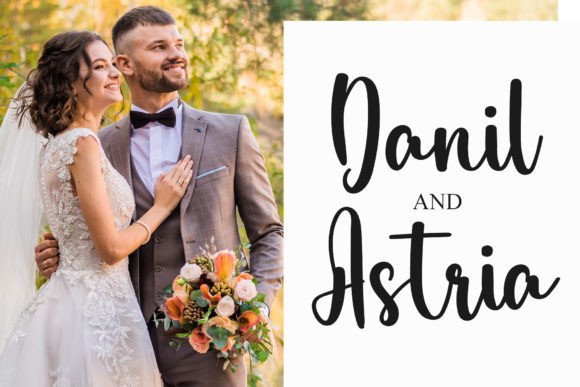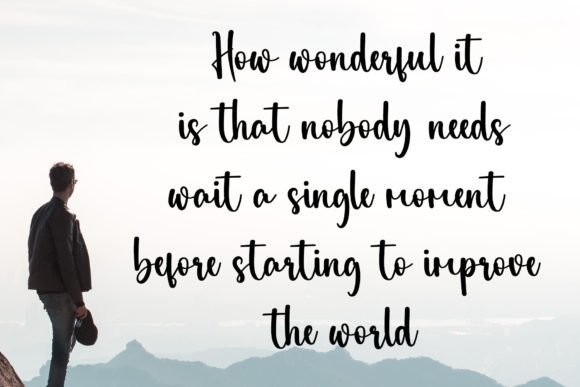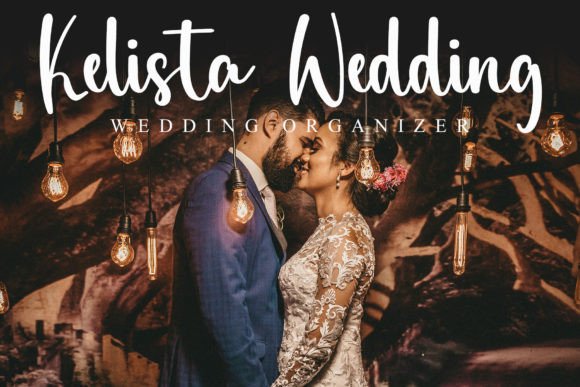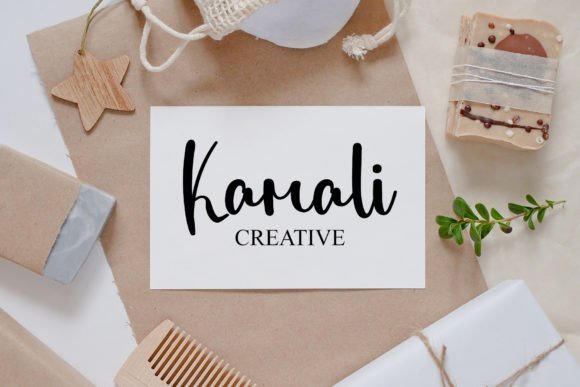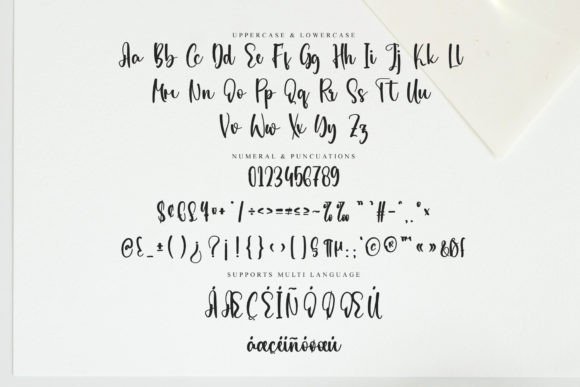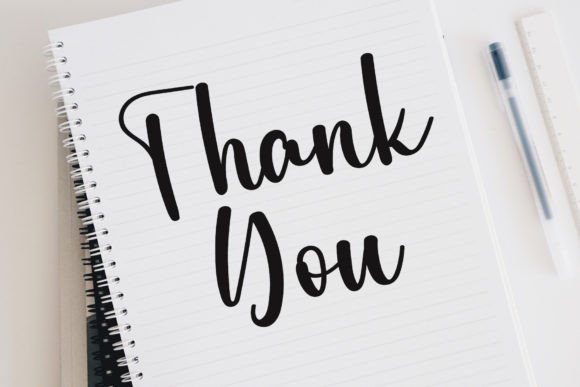
Introduction to Jester Font
As a designer, have you ever found yourself searching for the perfect font to add a touch of whimsy to your creative project? I know I have. And then, just like magic, it happens – you stumble upon the perfect combination of style and personality, and your design is transformed overnight. For me, that moment came when I discovered the Jester Font.
With its unique, handwritten feel and modern flair, Jester Font is the perfect addition to any design project. Whether you’re working on a greeting card, a branding campaign, or packaging design, this high-quality font is sure to bring a smile to your face and a touch of personality to your work. And the best part? It’s PUA encoded, making it easy to access all of the amazing glyphs and ligatures with ease.
Key Features of Jester Font
- High-quality design resource ideal for creative projects and designs.
- Unique, playful font style with a touch of whimsy, suitable for projects requiring a lighthearted tone.
- Designed with high resolution in mind, suitable for use in print and digital applications.
- Easy to customize and edit, making it a valuable design resource for designers and artists.
Honest Review: Jester Font
I recently stumbled upon the Jester Font, and I must say it’s been a game-changer for my creative projects. This font is a fantastic design resource that offers a unique touch to any project.
- High-quality design: The Jester Font is well-crafted and professional-looking, making it perfect for both personal and commercial use.
- Transparent background: The transparent background allows for seamless integration with images and other design elements.
- Limited font family: The Jester Font is a single font, which might limit its versatility in certain design scenarios.
Overall, I’m impressed with the Jester Font, and I would highly recommend it to designers looking for a unique and high-quality design resource for their creative projects.
How to Use Jester Font
Tips for Getting the Most Out of Jester Font
For optimal results, use Jester Font in conjunction with other design elements, such as graphics and images. You can also experiment with different font sizes and colors to create a unique and eye-catching design.
Common Use Cases for Jester Font
Jester Font is perfect for a range of creative projects, including social media graphics, presentations, and documents. Its high quality design and transparent background make it a versatile design resource that can be used in a variety of contexts.